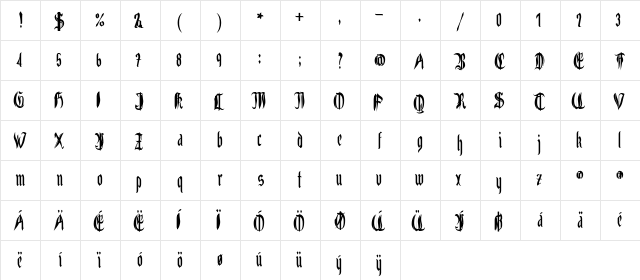
Grabstein Gotik Regular
| Designer | Honza Steiner |
Design Context for Grabstein Gotik Typeface
Grabstein Gotik is a composed and adaptable typeface that performs quietly and consistently across a wide range of design contexts.